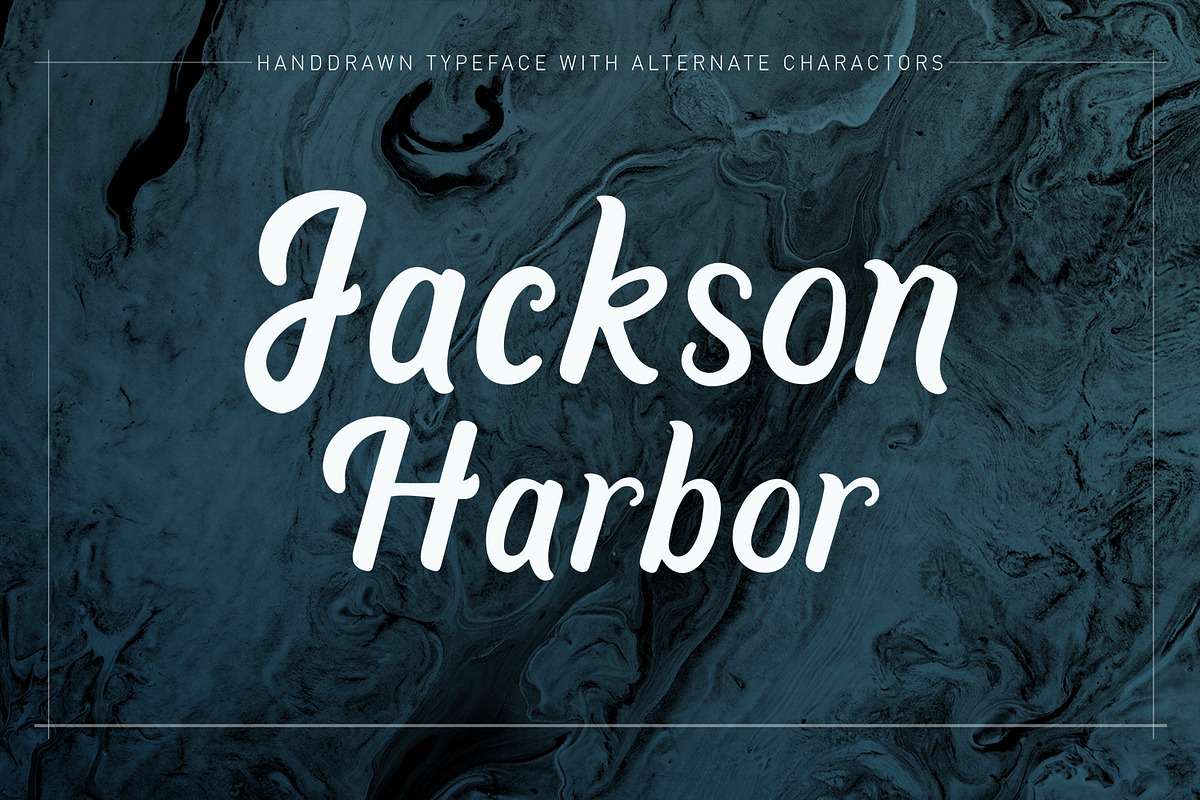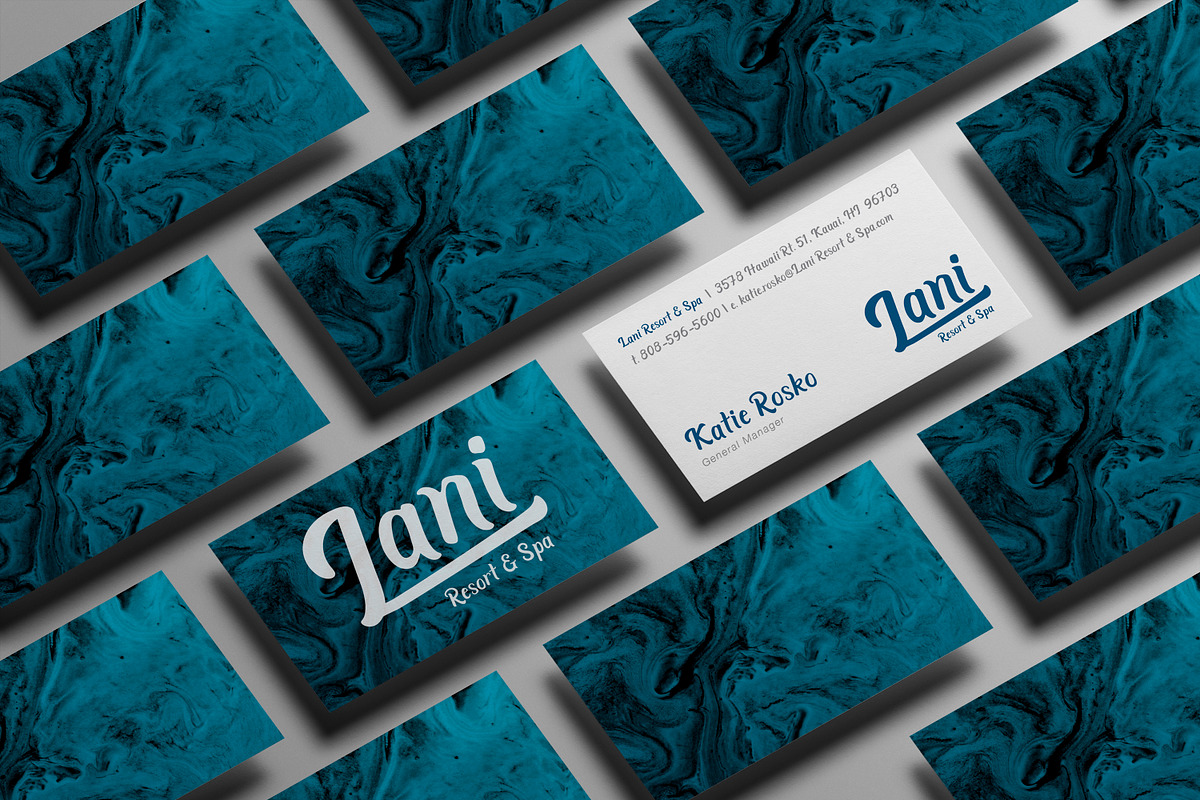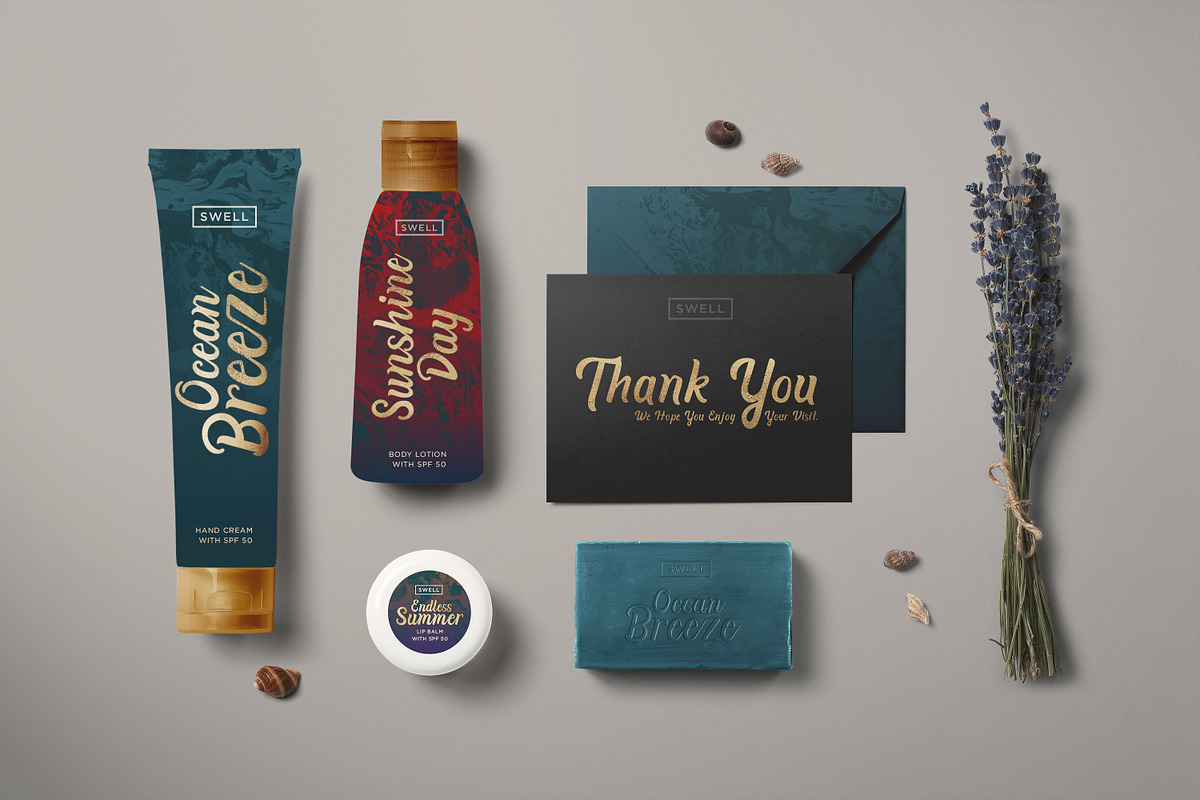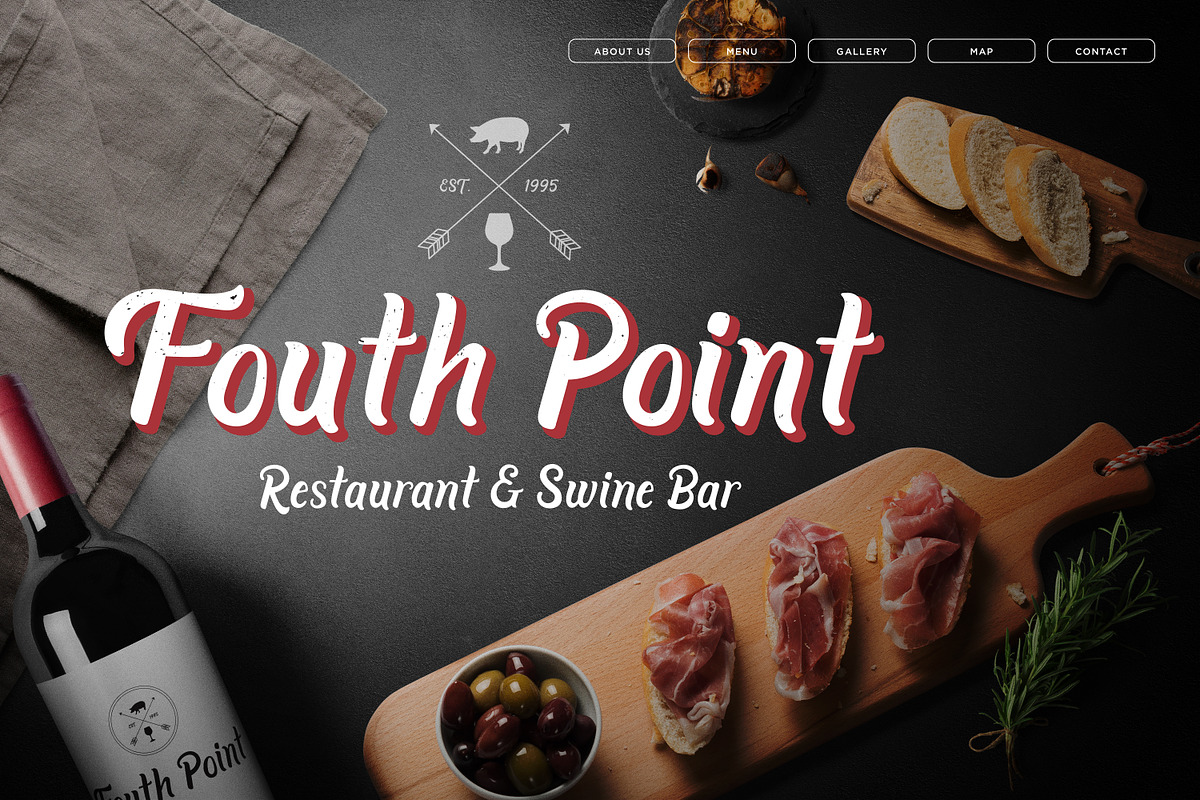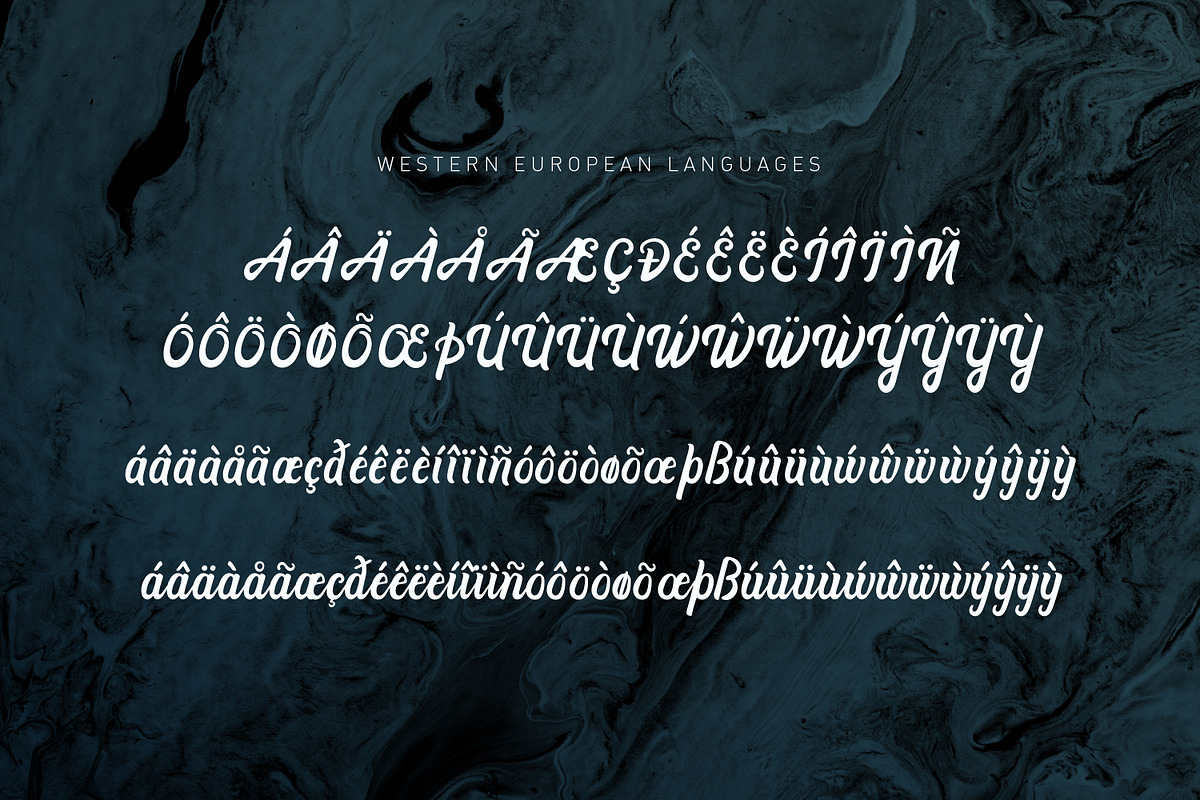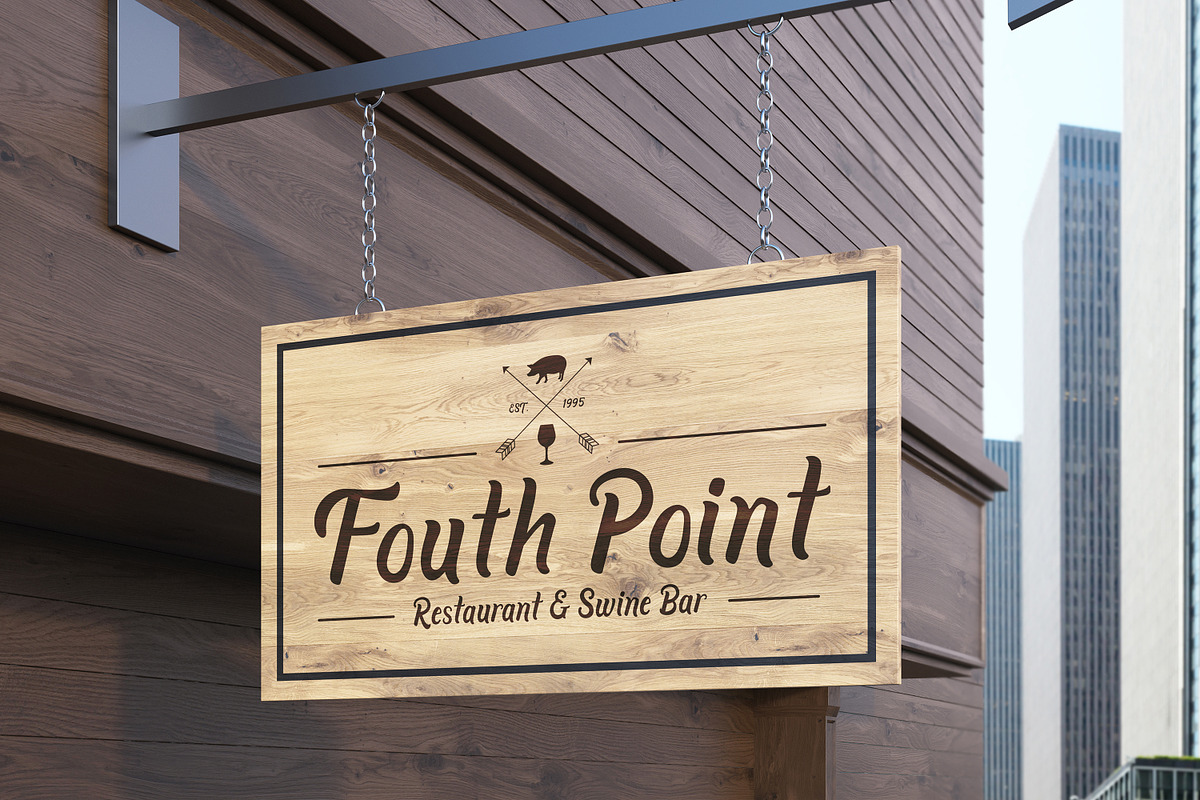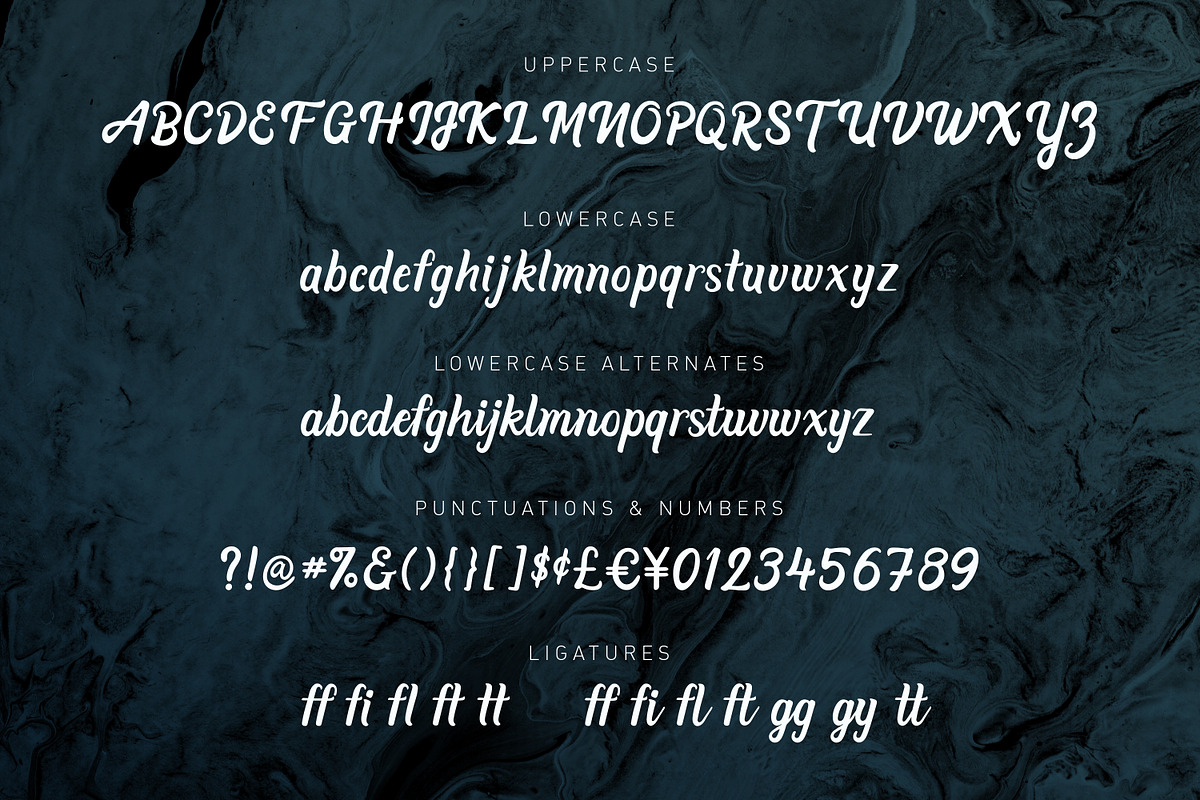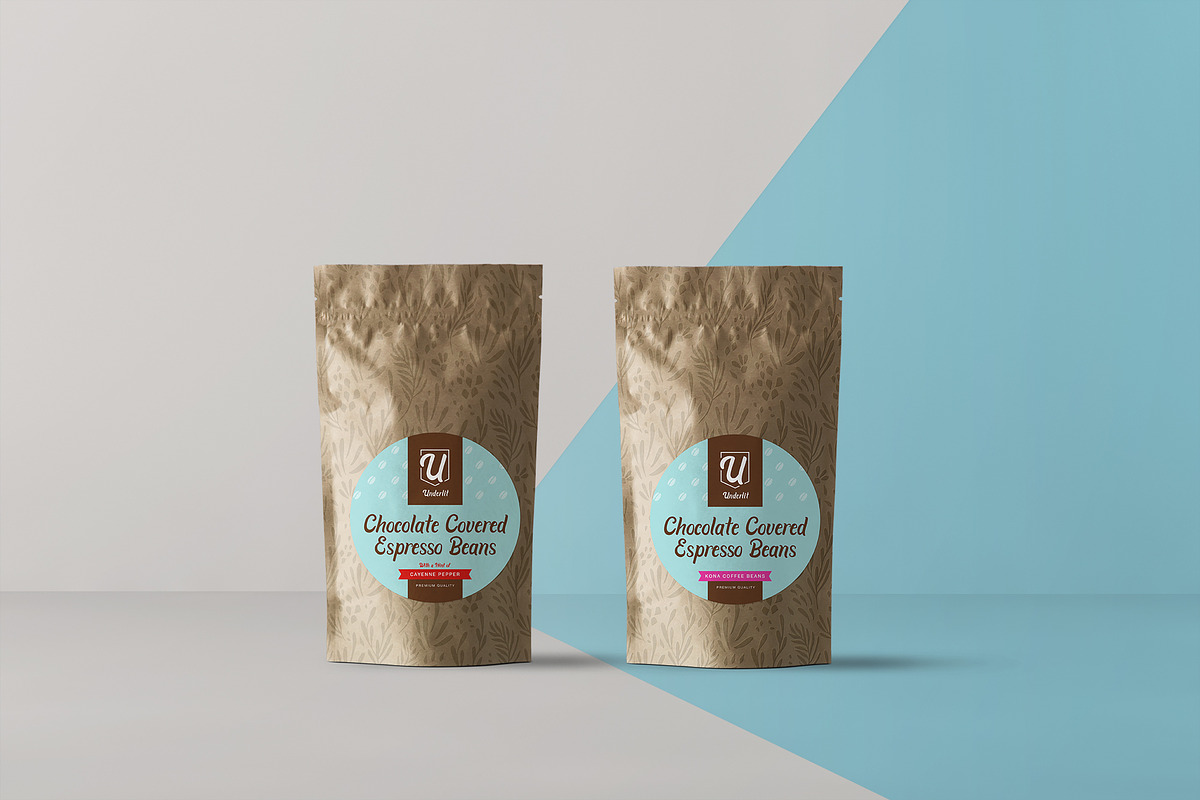
Jackson Harbor | Handdrawn Typeface
Jackson Harbor | Handdrawn Typeface by Cottonwood312 is a font selected for branding, posters, packaging, typography.
- Jackson Harbor comes with standard and alternate characters that will make your design standout.
- Ligatures are also included to both standard and alternates.
- Jackson Harbor comes with standard and alternate characters that will make your design standout.
- Ligatures are also included to both standard and alternates.
- Jackson Harbor comes with standard and alternate characters that will make your design standout.
- Ligatures are also included to both standard and alternates.
- It has multilingual support with accented characters for for international (Western European, Central European and South Eastern European) u
Jackson Harbor | Handdrawn Typeface by Cottonwood312 fits naturally into Branding, posters, packaging, typography.